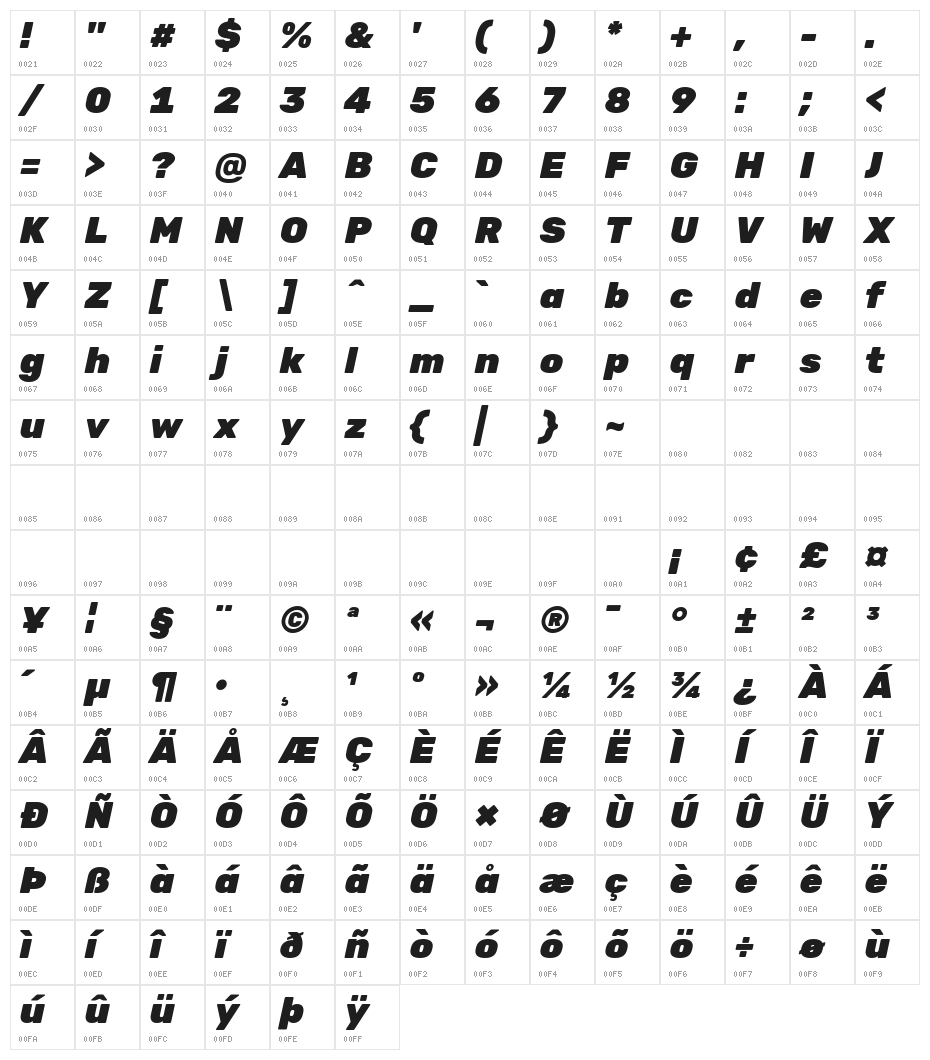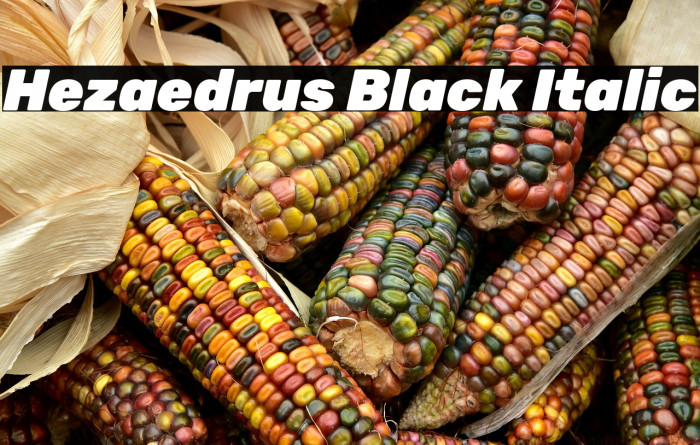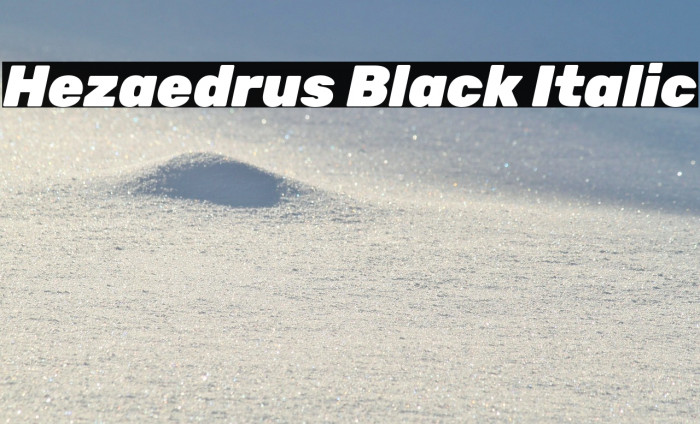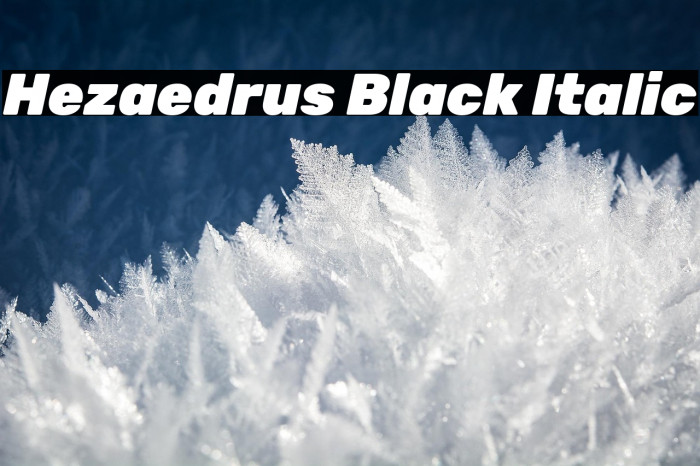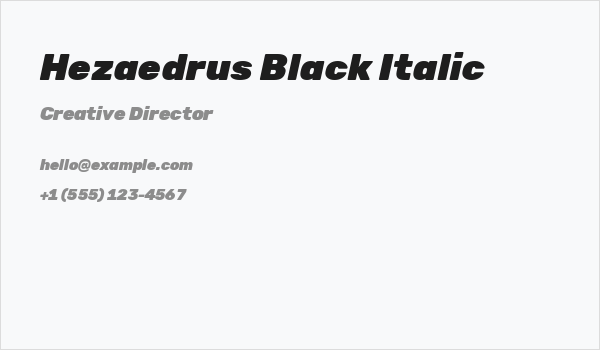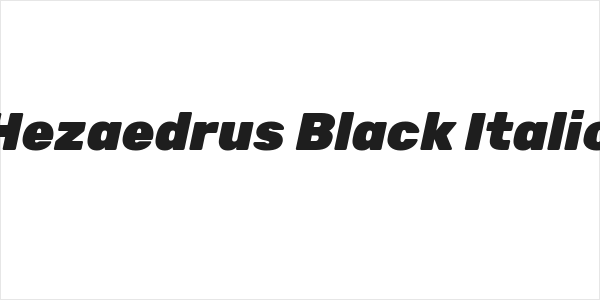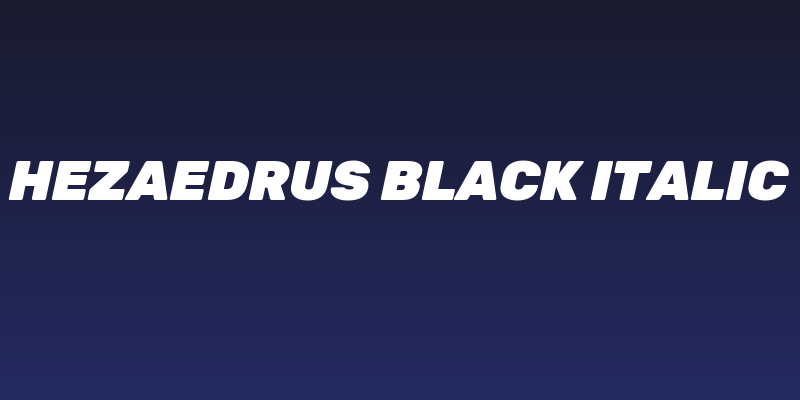
Hezaedrus Black Italic Font
Hezaedrus Black Italic Description
This font features a bold and dynamic style with a strong presence. The characters are italicized, giving them a forward-leaning, energetic appearance. The strokes are thick and consistent, providing a sense of strength and stability. The uppercase and lowercase letters are well-proportioned, maintaining readability while conveying a sense of urgency and movement. The numbers and special characters are designed to match the boldness and style of the alphabet, ensuring a cohesive look across all text elements.
| Use Case | Headlines, Logos, Advertising |
| Proposed Projects | Ideal for sports branding, dynamic posters, attention-grabbing headlines, and modern advertising campaigns. |